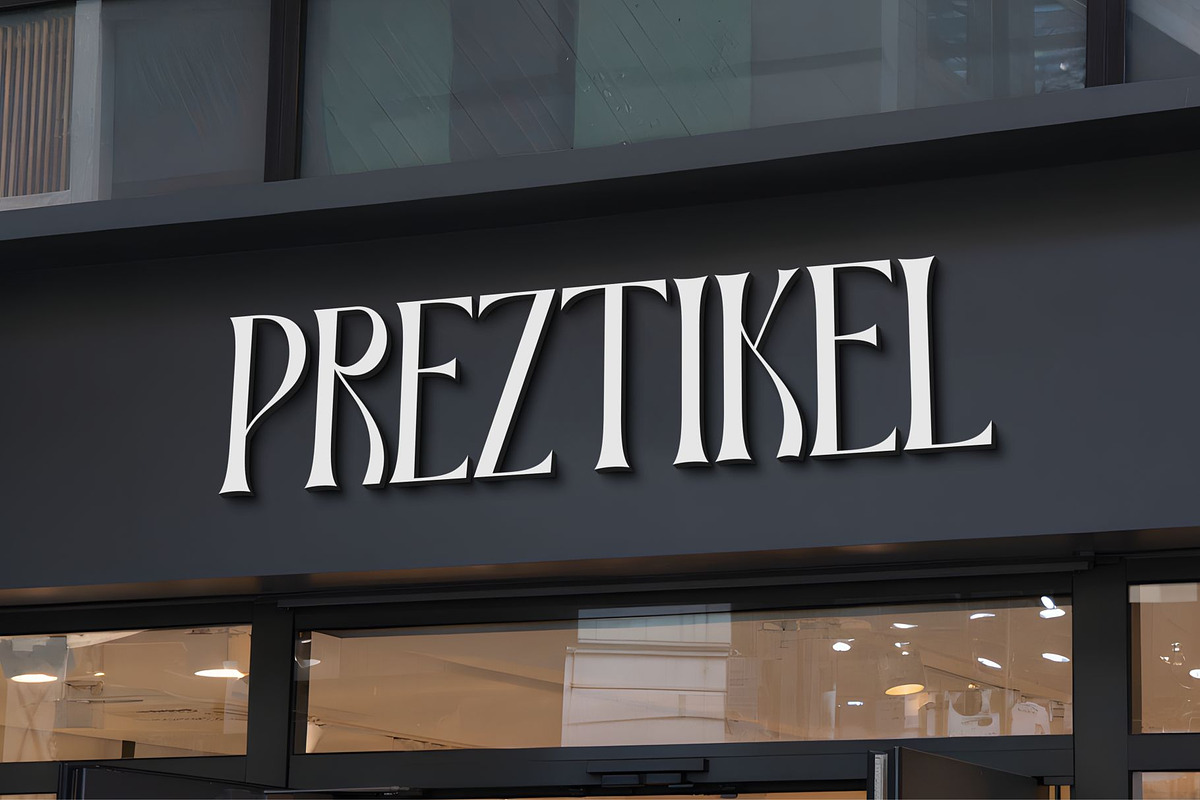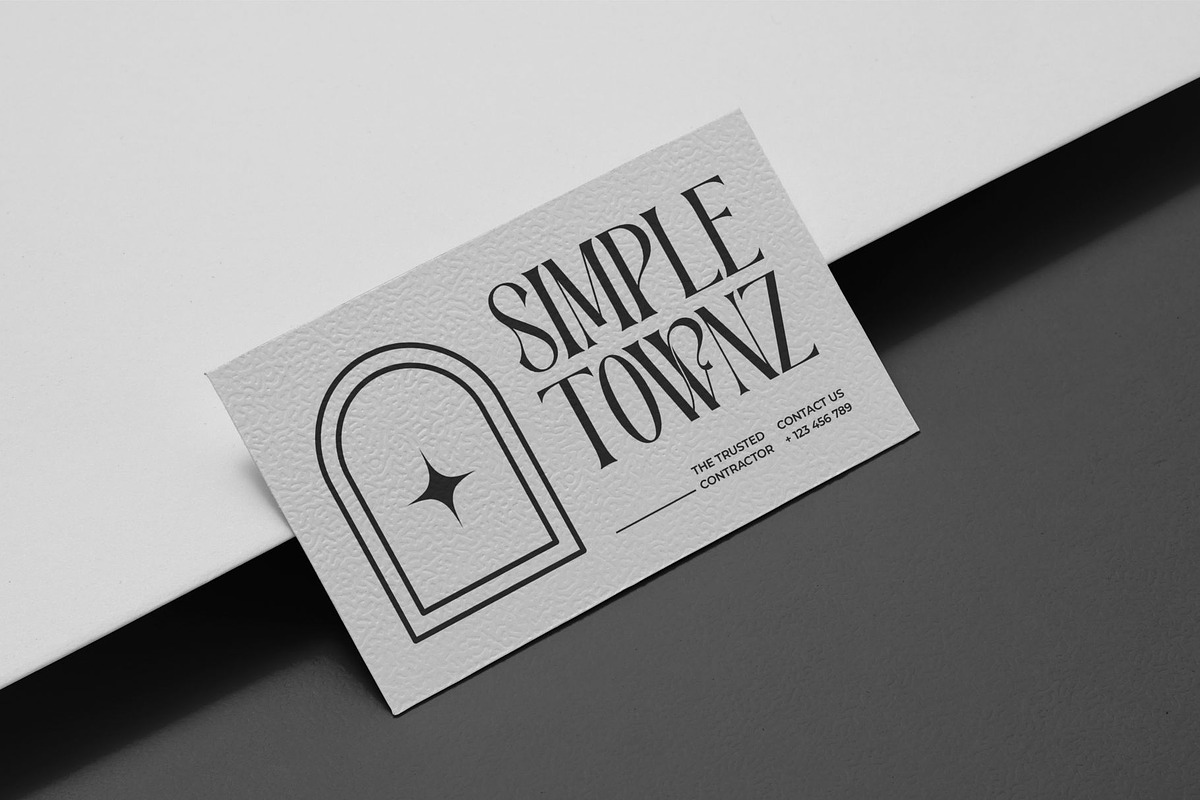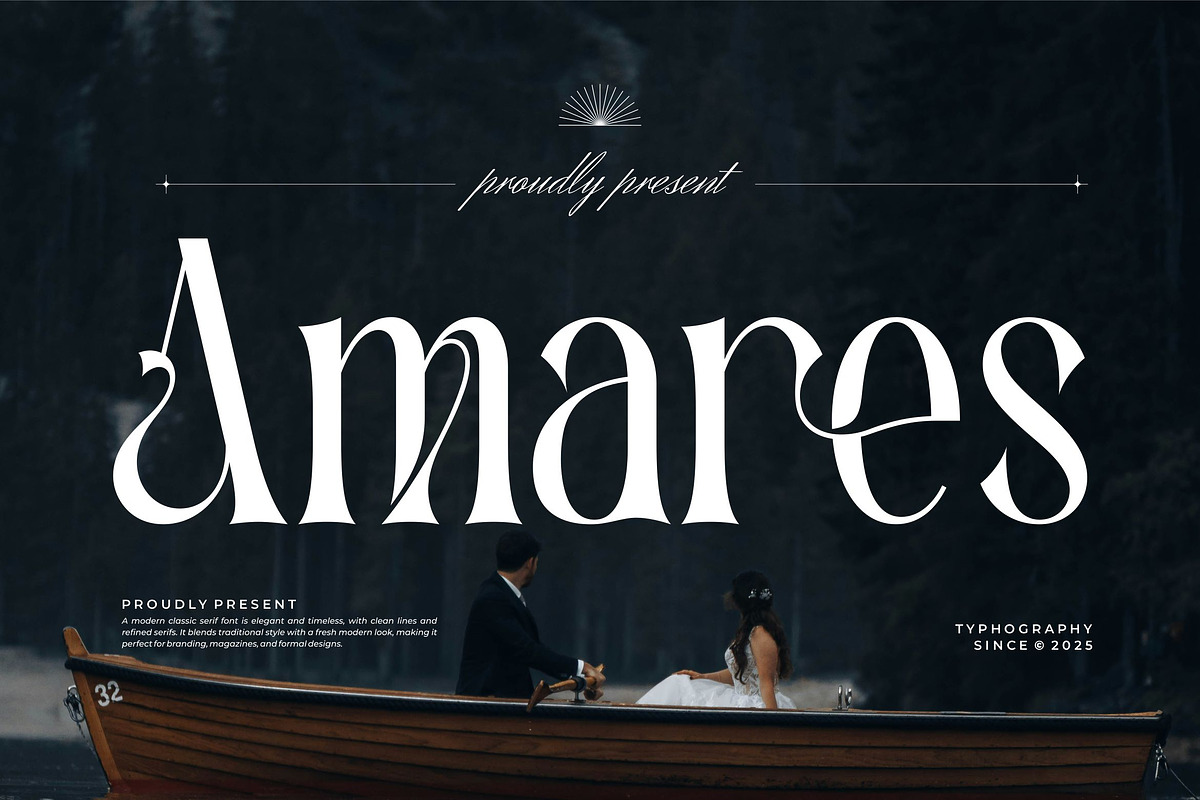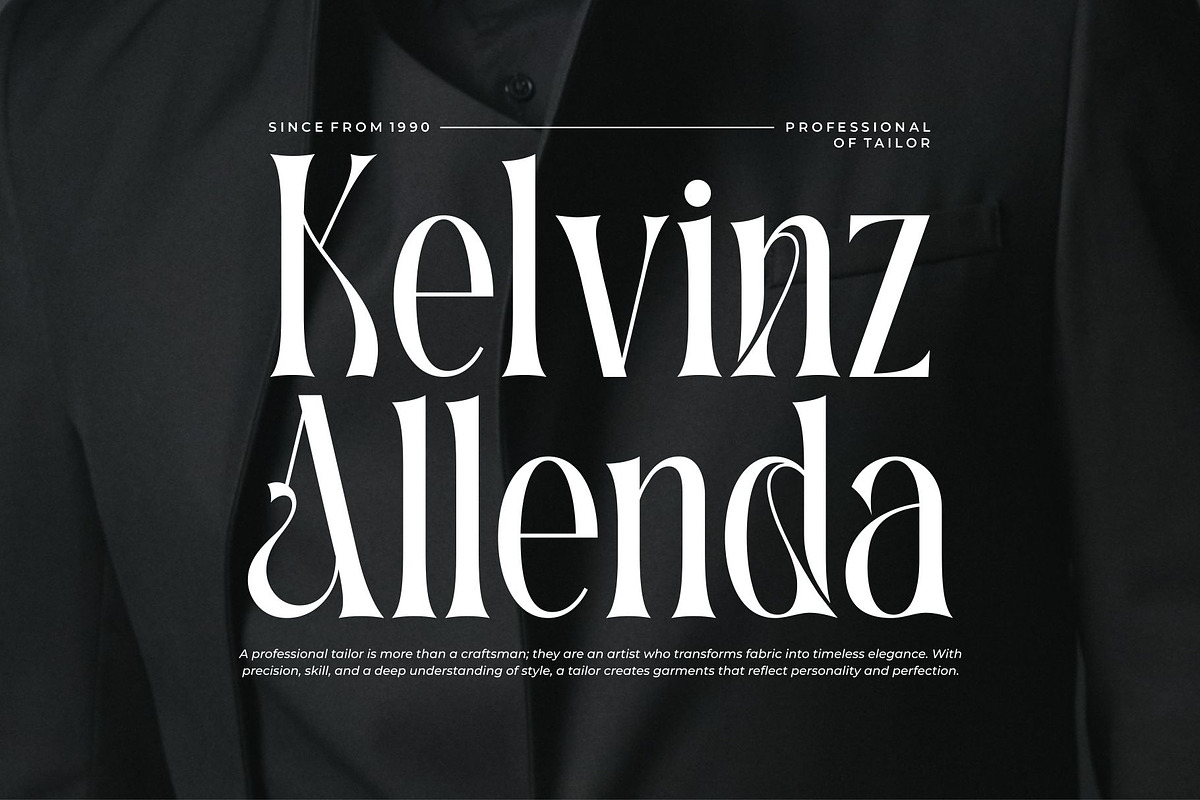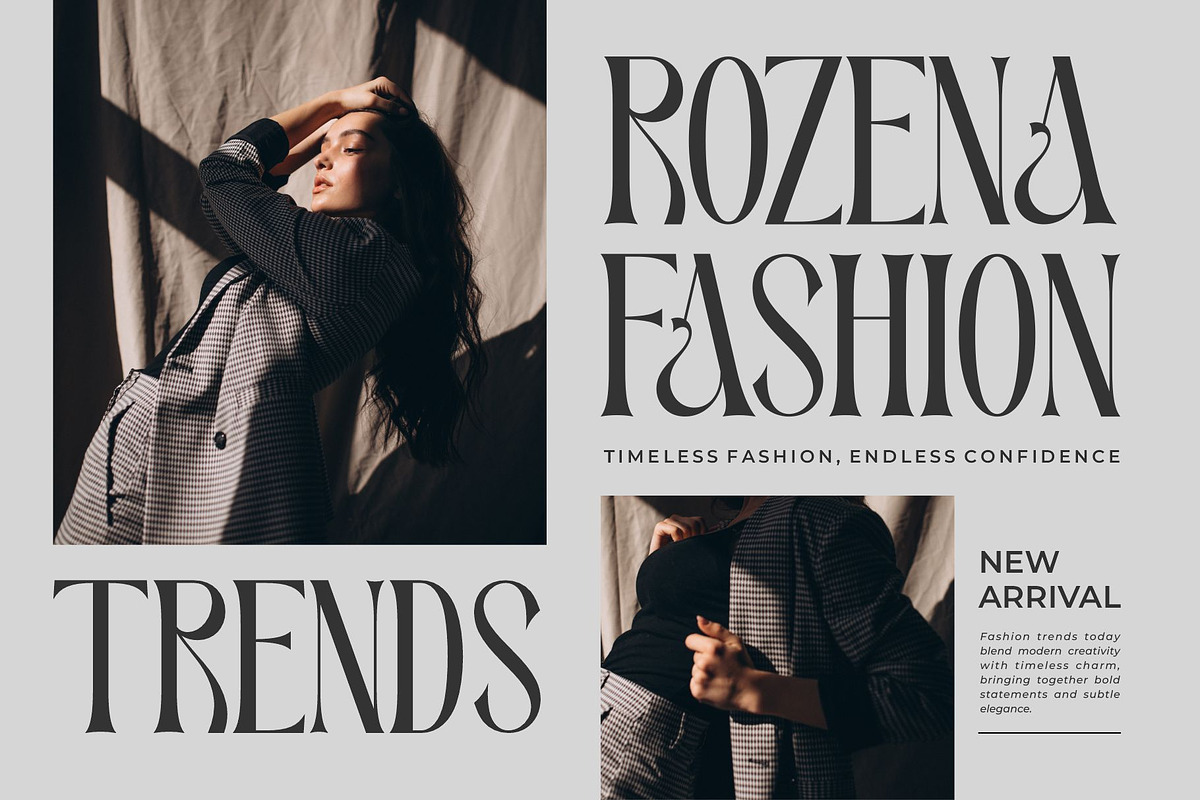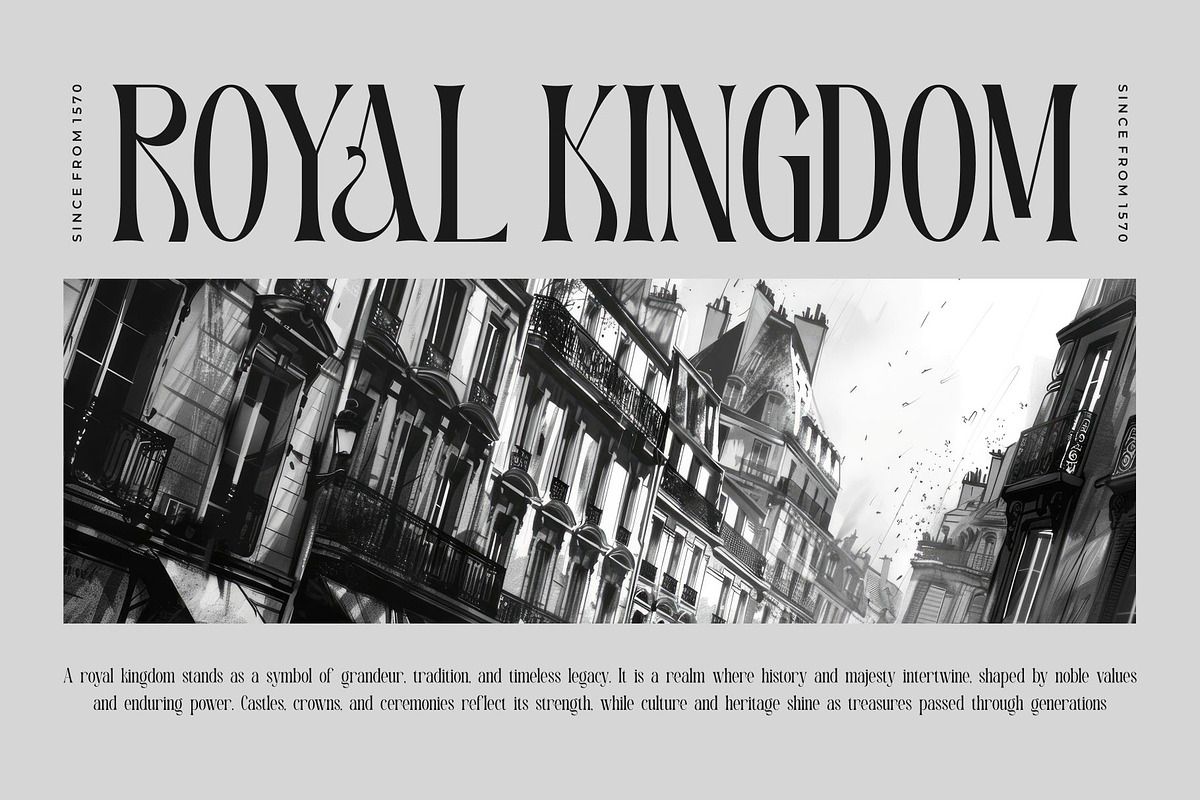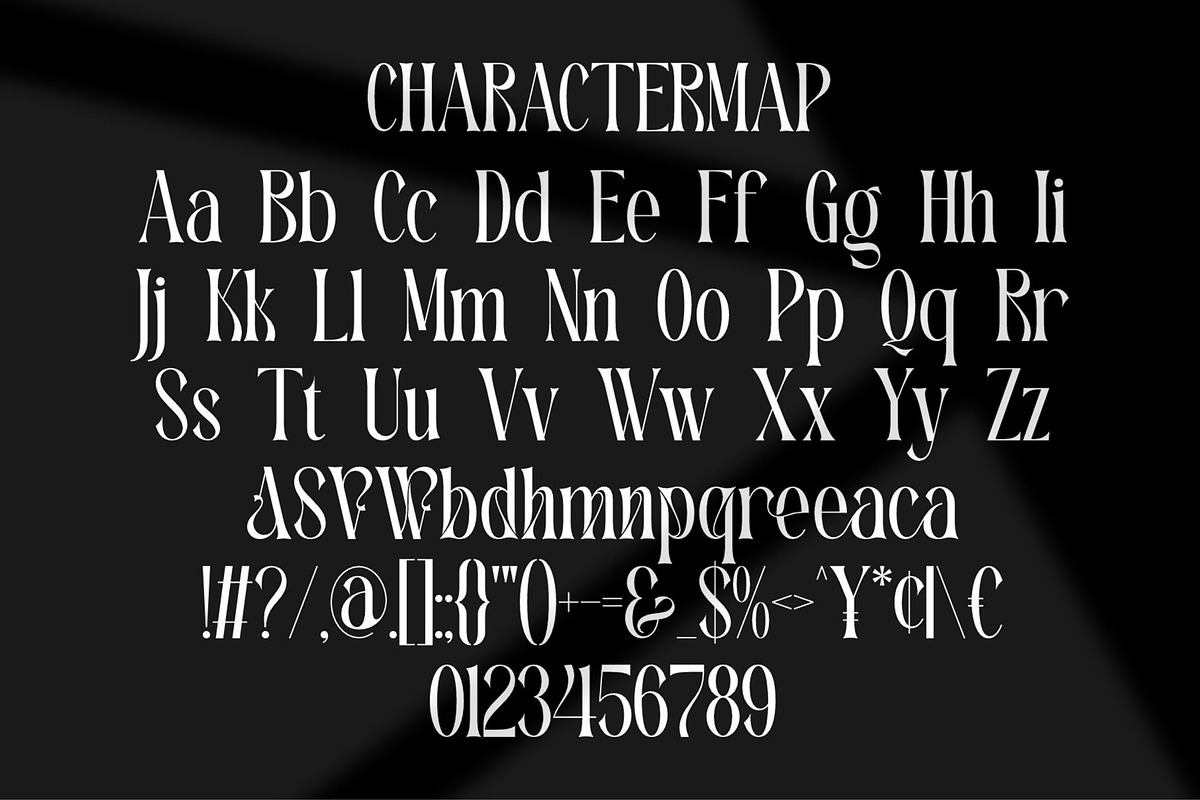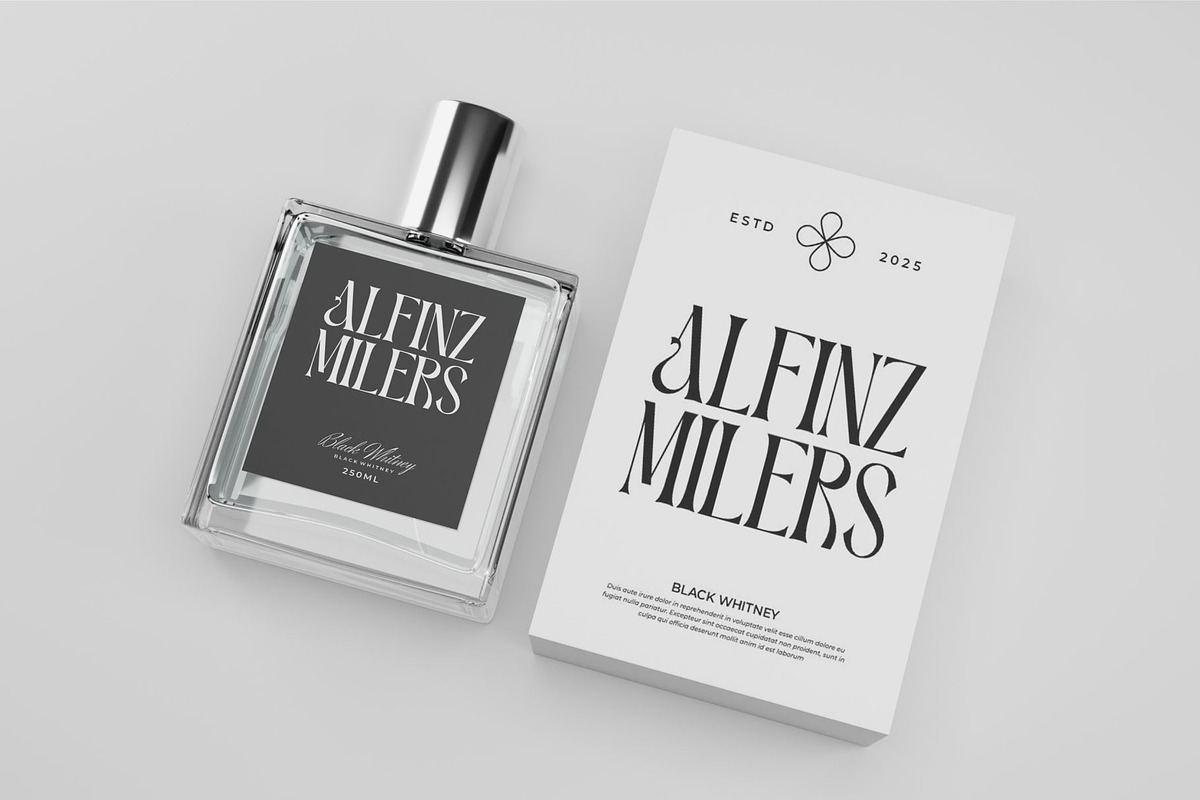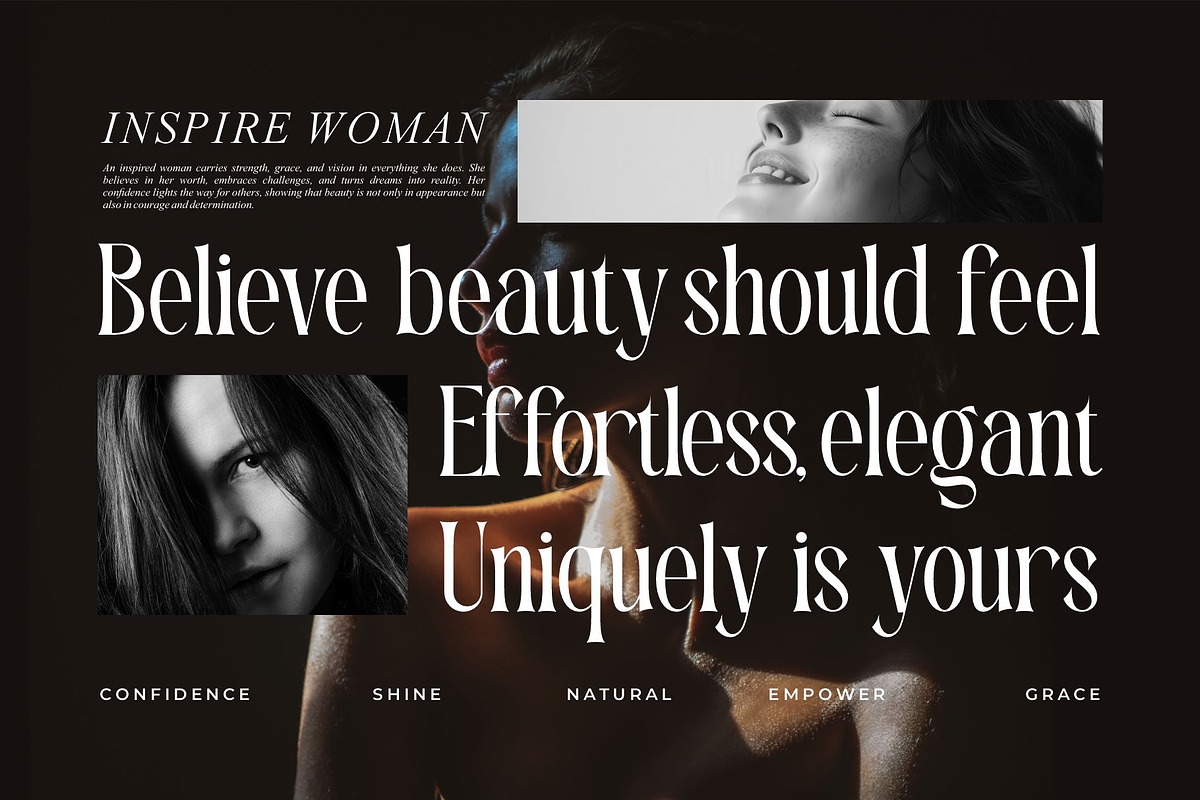
Amares || Elegant Classy Serif Font
Amares Serif is a elegant and classy font type for all branding and logo designs. This elegant and classy Serif font has a beautiful character. This font is suitable for invitation card designs, cool logos, movie titles, movie names, business cards, book titles, brand names, and various other designs. Amares Serif is a smooth serif font that exudes sophistication and the moment. Its stylish akternate and ligatures make this font a perfect partner for any project.
- Alternate and Ligature